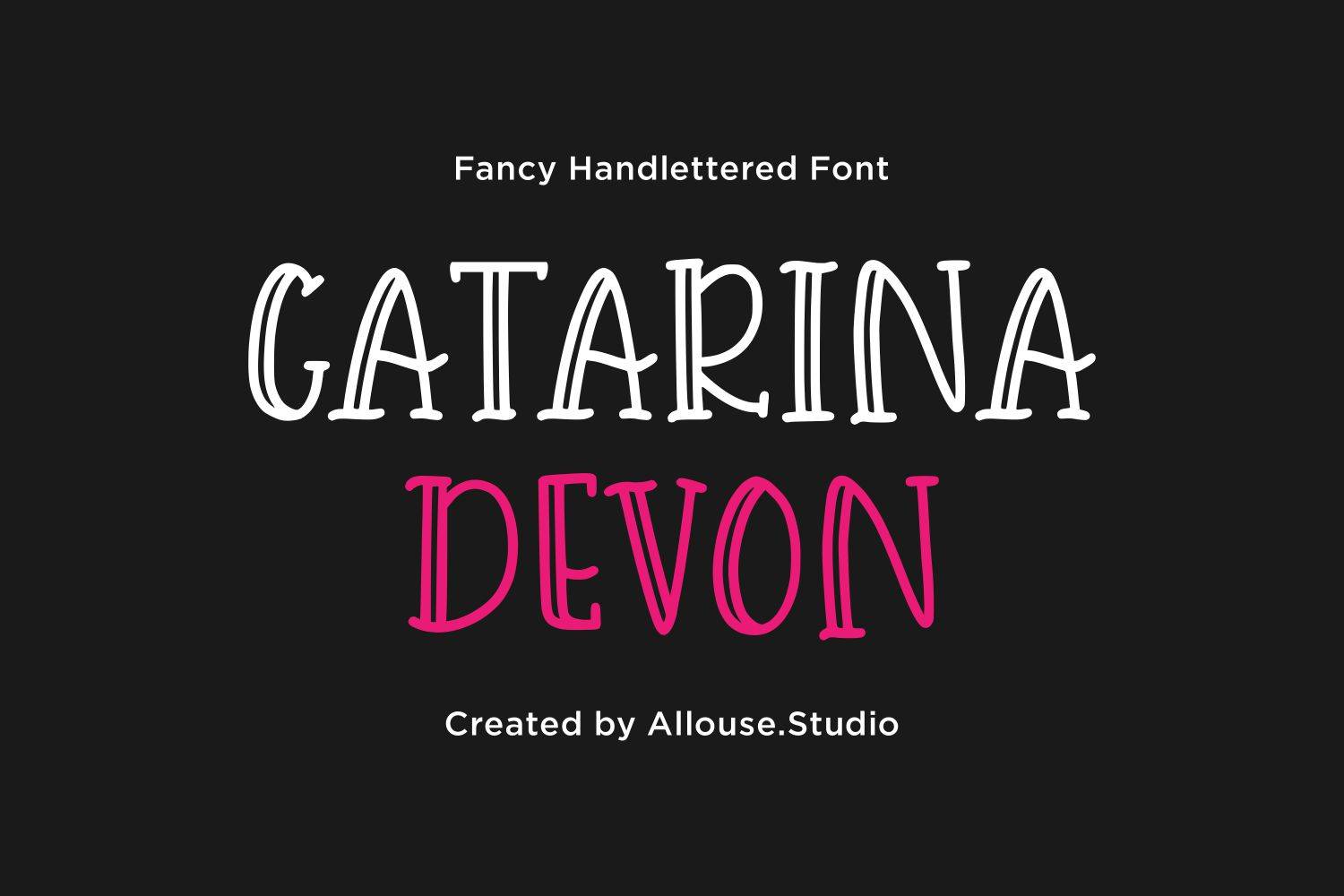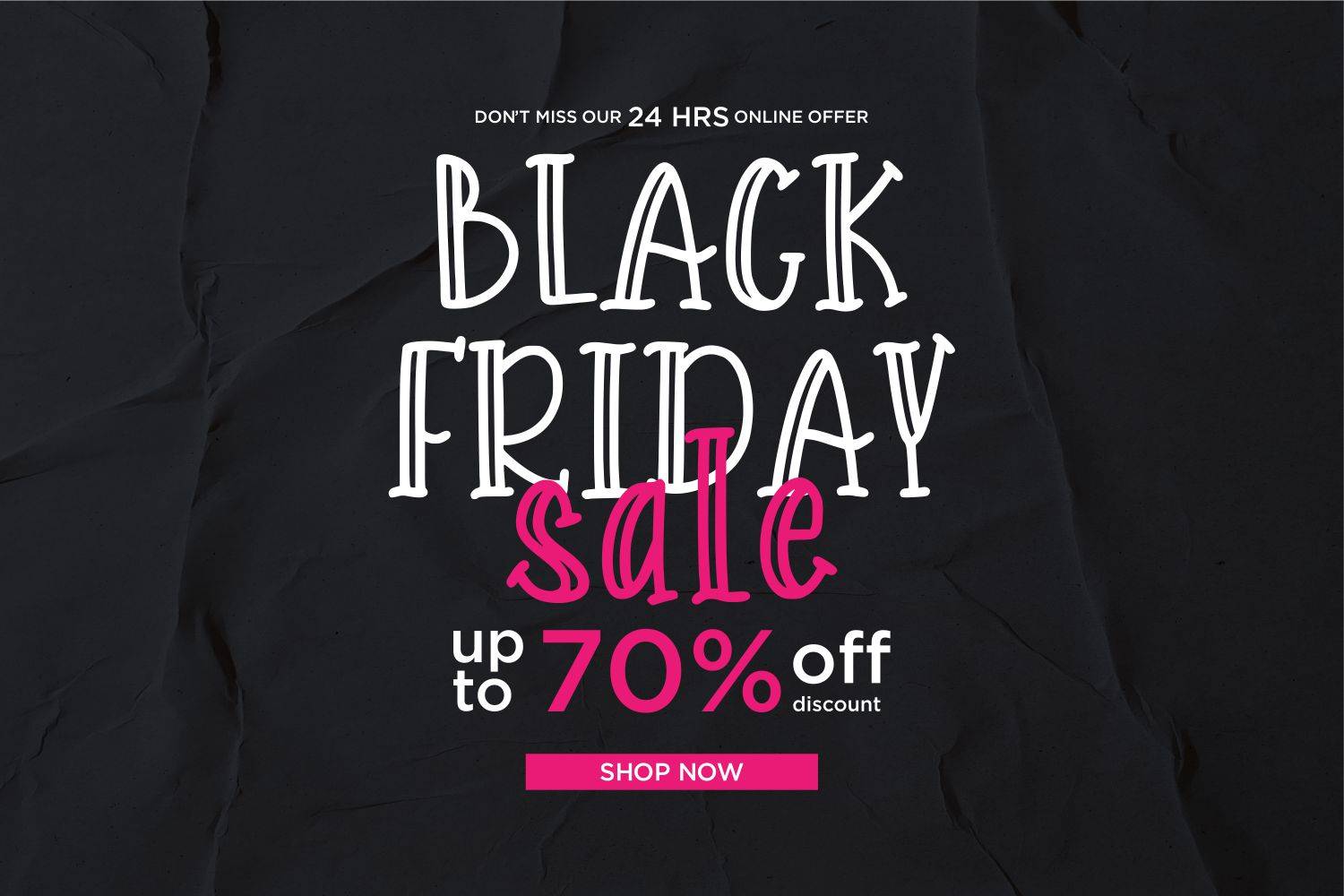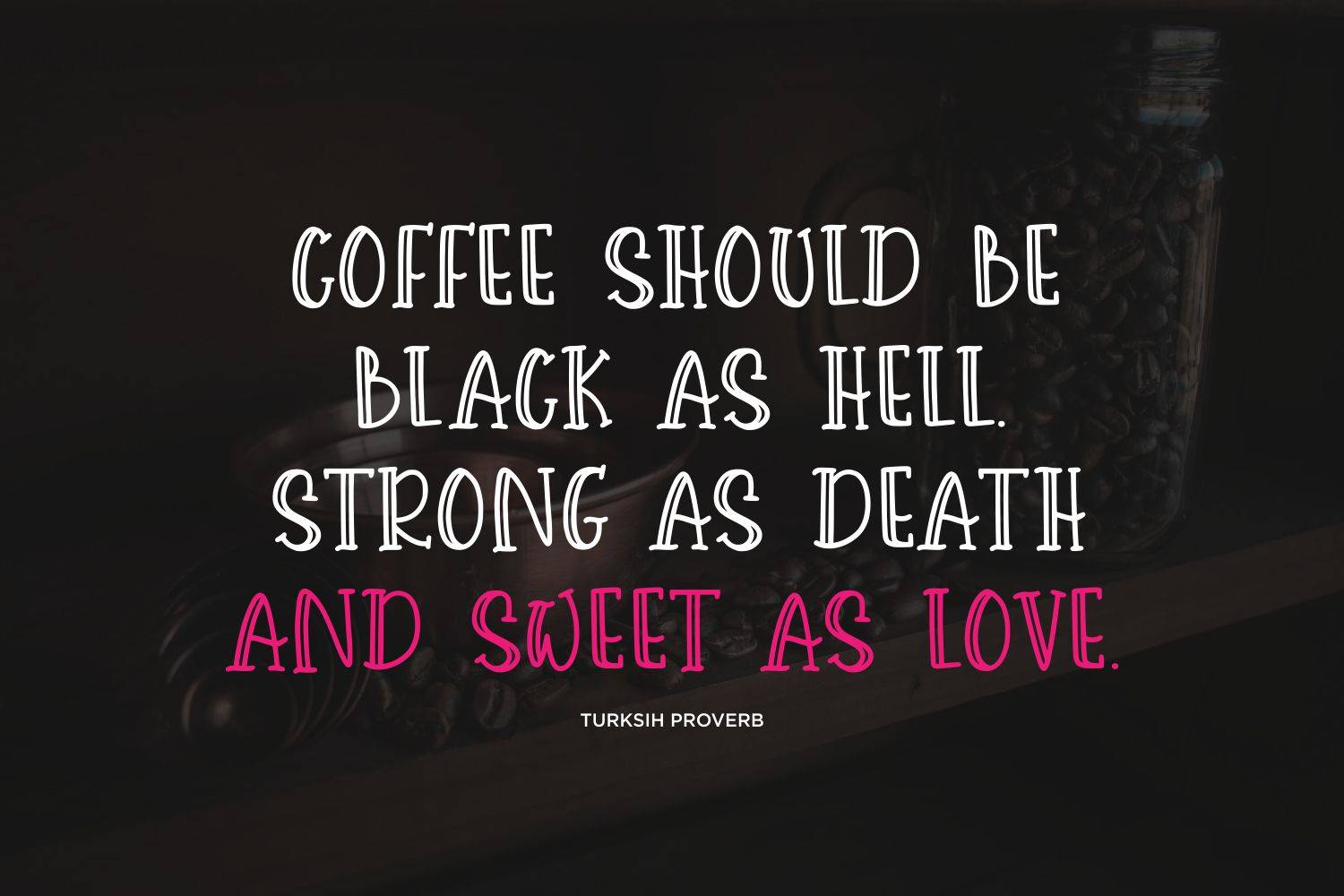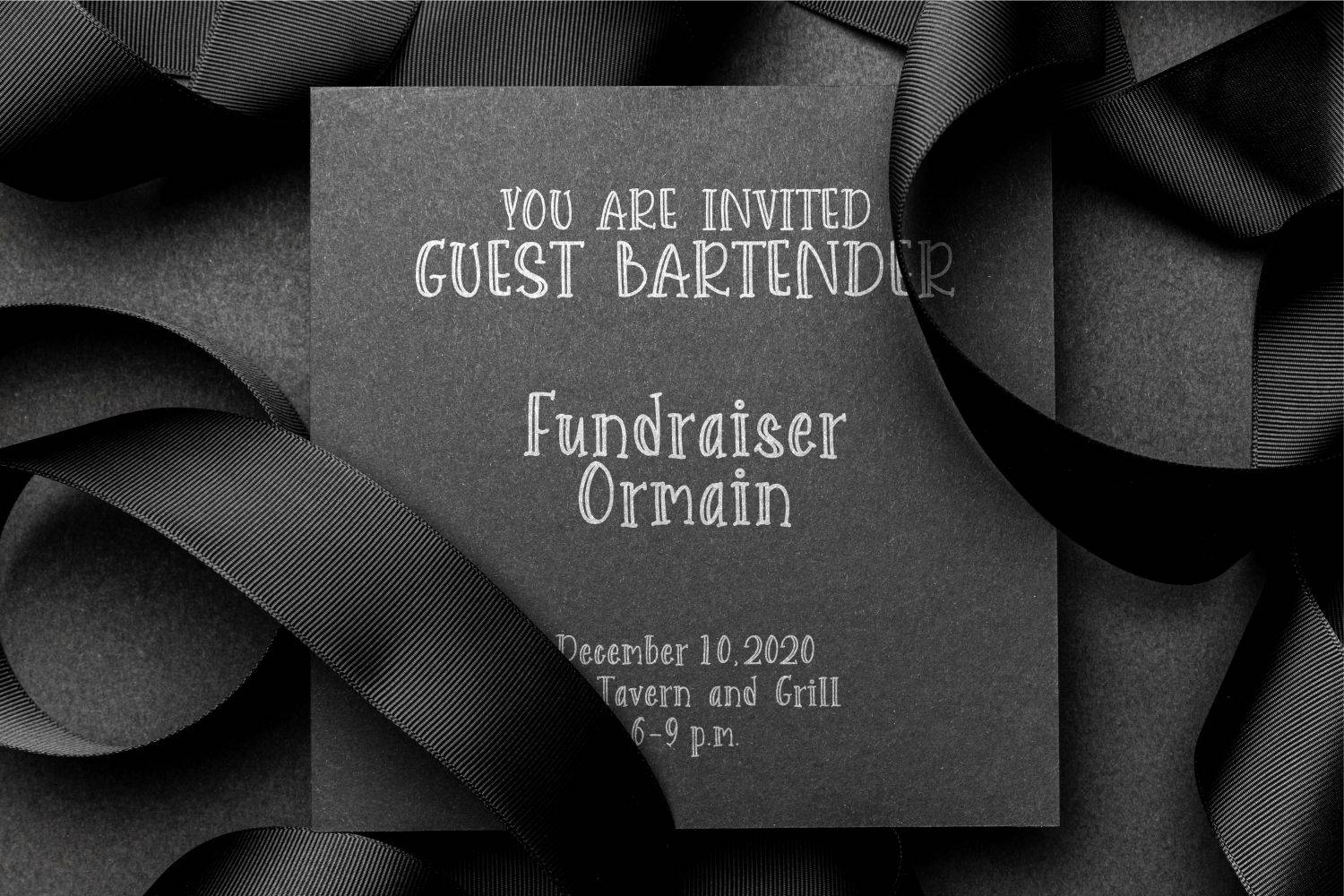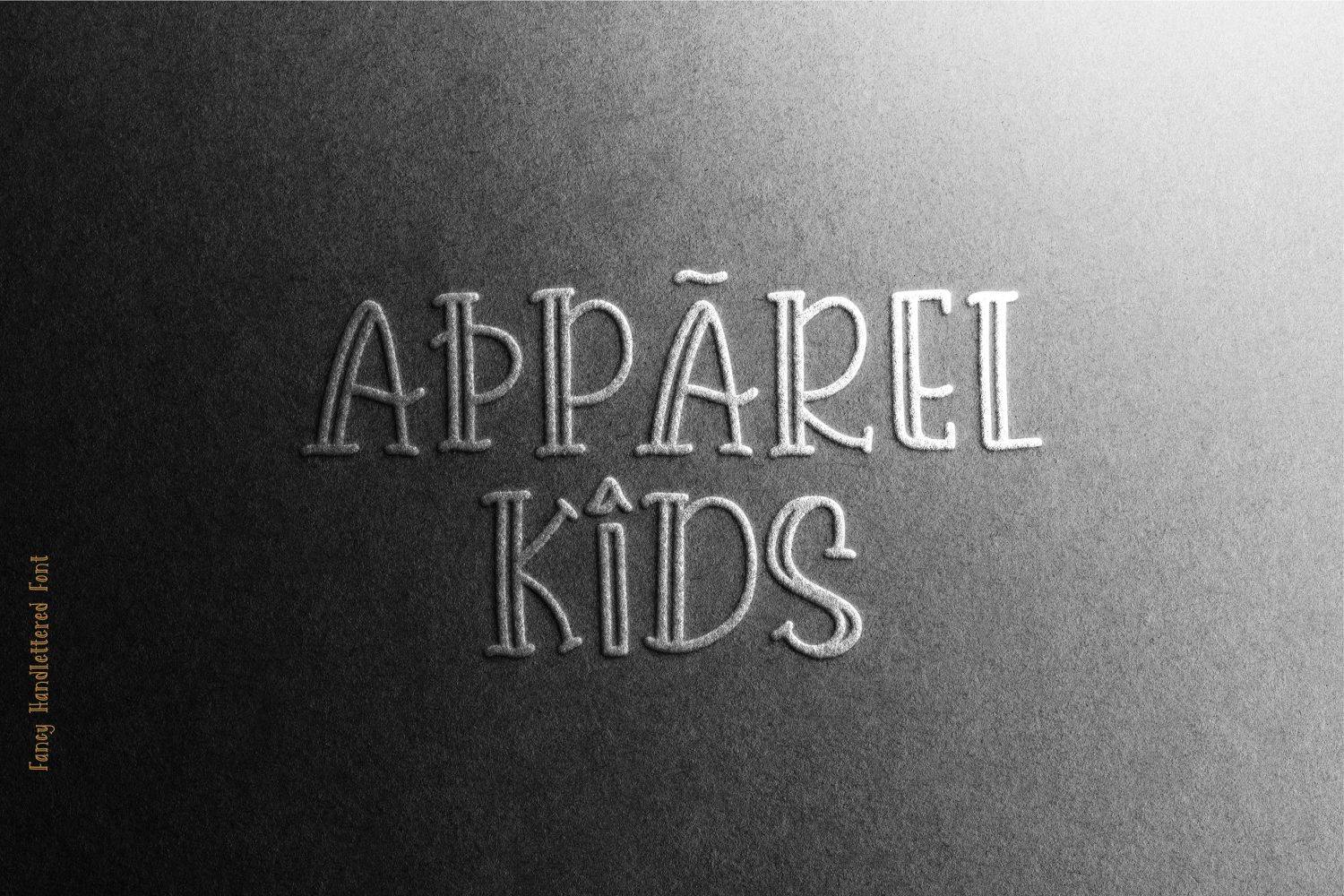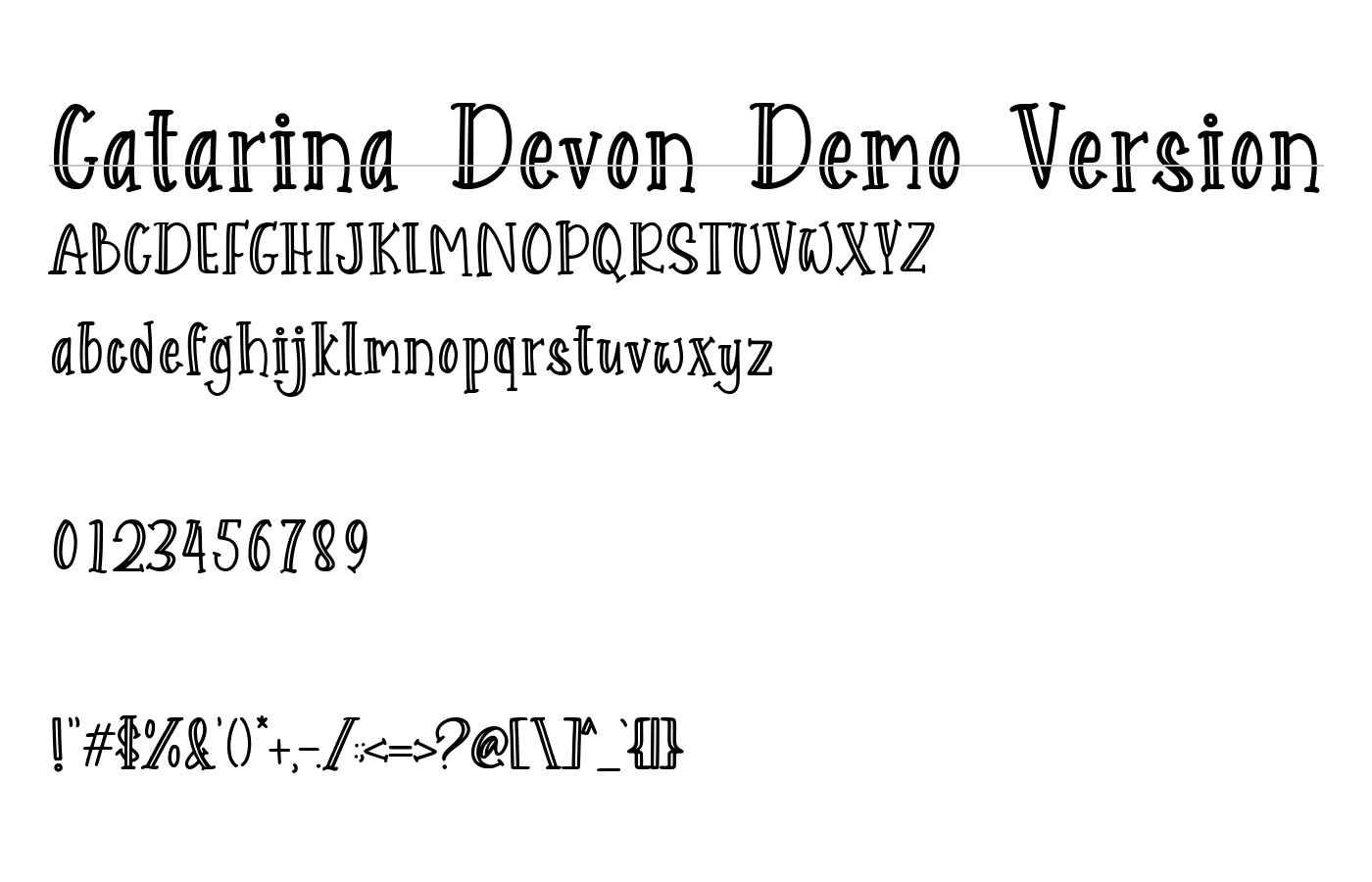
Catarina Devon is a whimsical serif font featuring tall, narrow letterforms with playful curves and subtle irregularities that give it a hand-crafted, vintage feel. Its thin strokes and delicate serifs create an elegant yet quirky personality, making it ideal for creative headlines, branding, and projects that seek a charming, distinctive touch. This font works beautifully in artistic or retro-inspired designs where a light, expressive style is desired.
Catarina Devon Font
About Catarina Devon Font